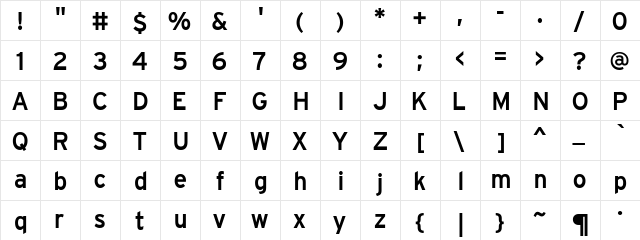
IntraStateHighwayBold Regular
Design Context for IntraStateHighwayBold Typeface
IntraStateHighwayBold is a composed and adaptable typeface that performs quietly and consistently across a wide range of design contexts. Its bold stroke weight gives it real presence on the page.